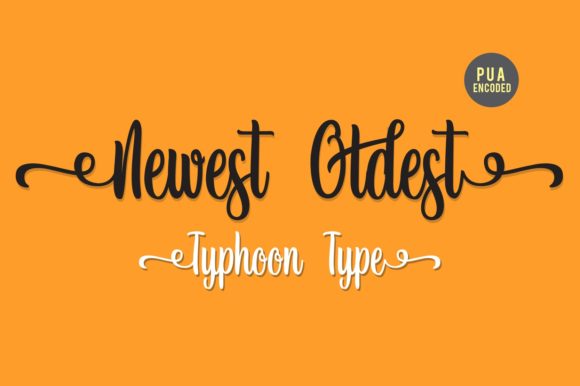
Newest Oldest Font
About Newest Oldest Font
The Newest Oldest is a striking typeface. It can be used for logos, name tags, advertising, product packaging, clothing, social media & greeting cards.